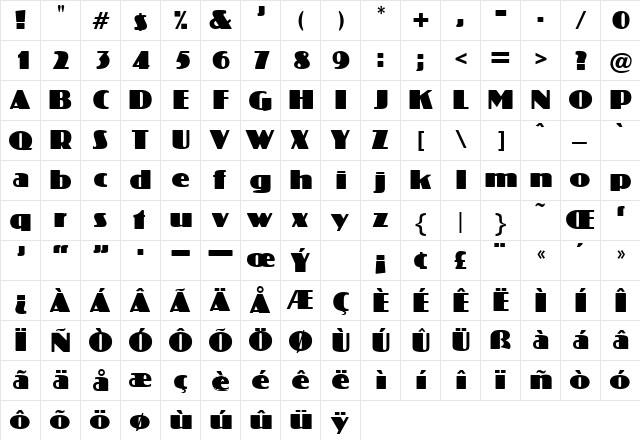
Dimension Regular Font Preview
Dimension Regular
Design Context for Dimension Typeface
Dimension is a composed and adaptable typeface that performs quietly and consistently across a wide range of design contexts.